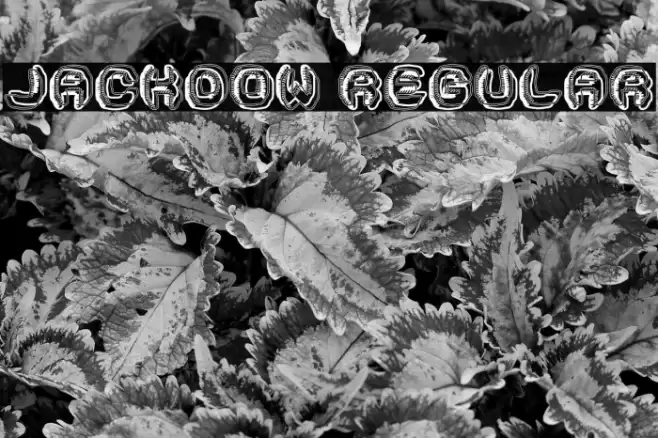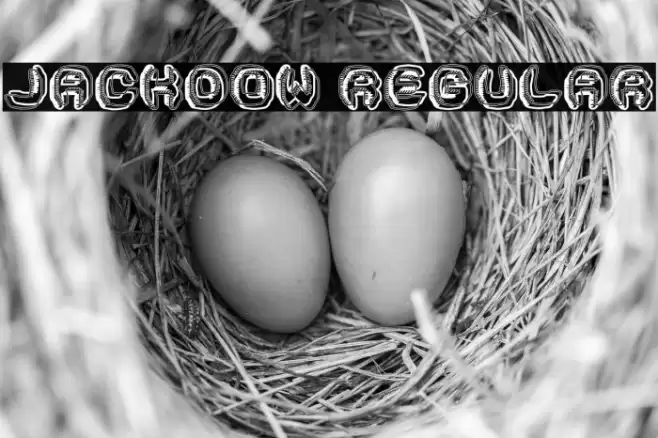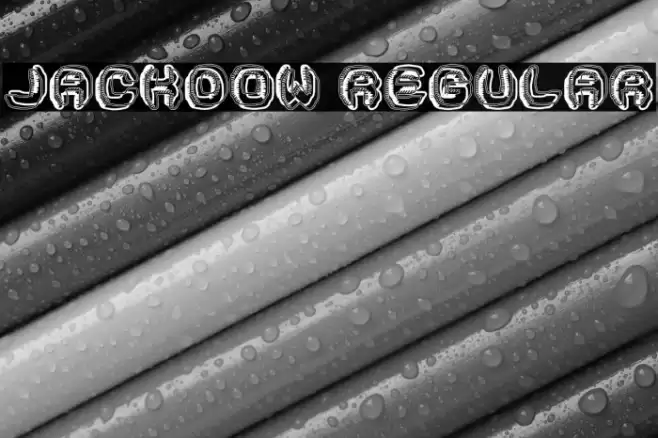
Jackdow Regular Font
Jackdow Regular Description
This font features a bold, decorative style with a three-dimensional appearance. The letters are outlined with a shadow effect, giving them a layered look. The strokes are thick and consistent, creating a strong visual impact. The design is playful and eye-catching, making it suitable for creative and artistic projects. The characters have a uniform width, and the spacing between them is normal, ensuring readability despite the intricate design. The font's unique style makes it stand out, perfect for projects that require a distinctive and memorable typeface.
A bold, decorative font with a 3D shadow effect and thick strokes from Uncategorized fonts.
- Proposed Projects: Ideal for posters, headlines, logos, and any design requiring a bold statement.